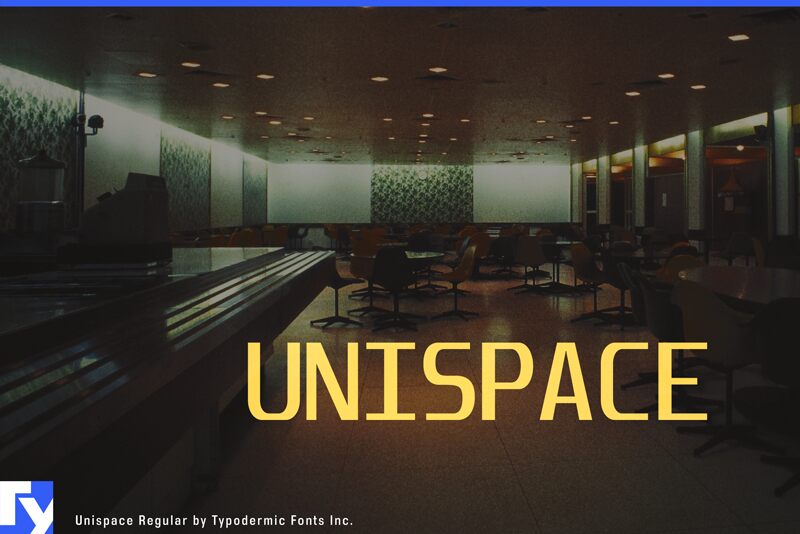
Unispace-BoldItalic
Unispace is monospaced for all your monospaced font needs. Proportional spacing be damned: monospacing is what all the cool kids are doing.